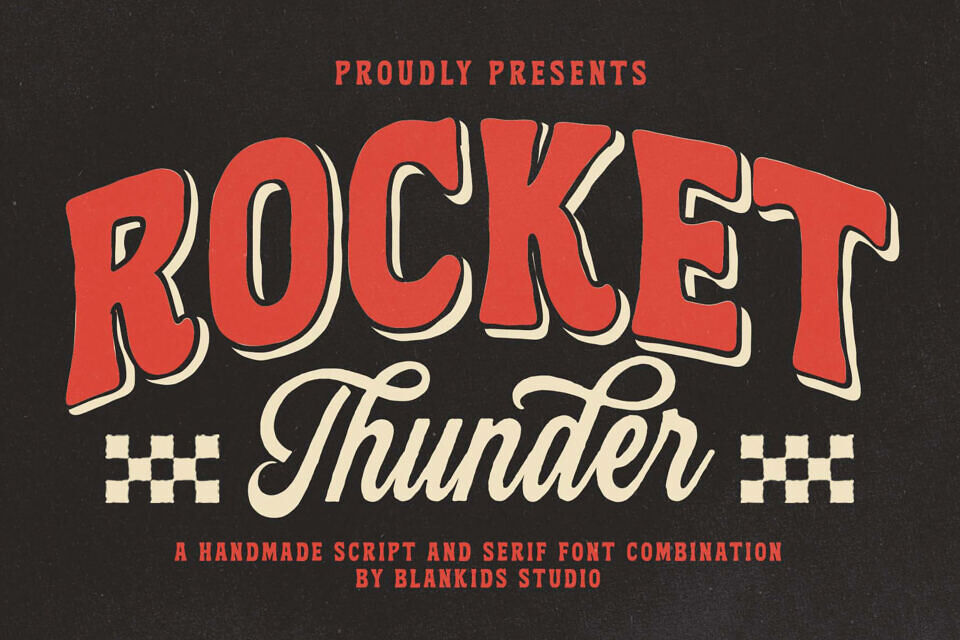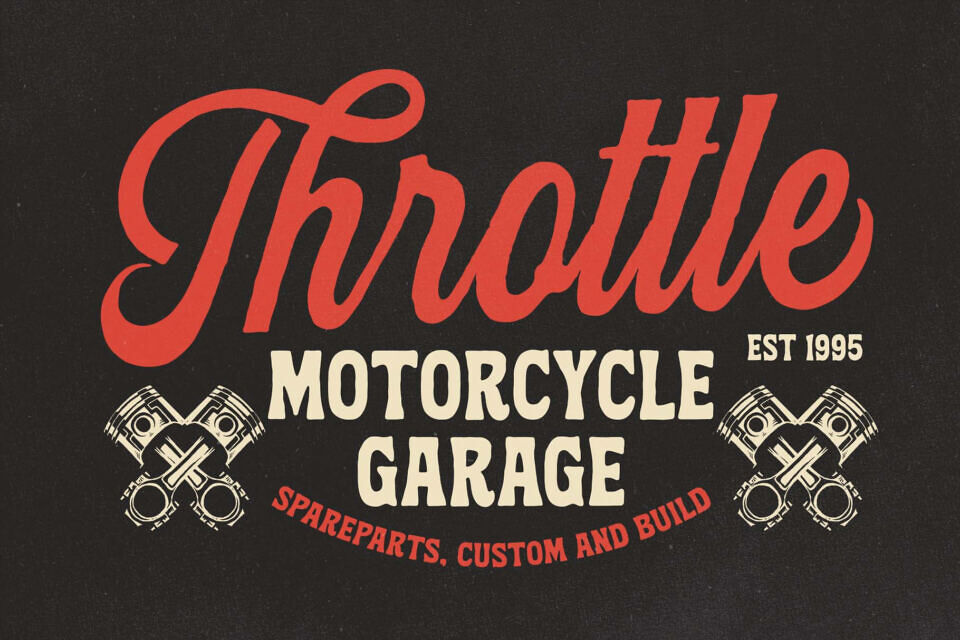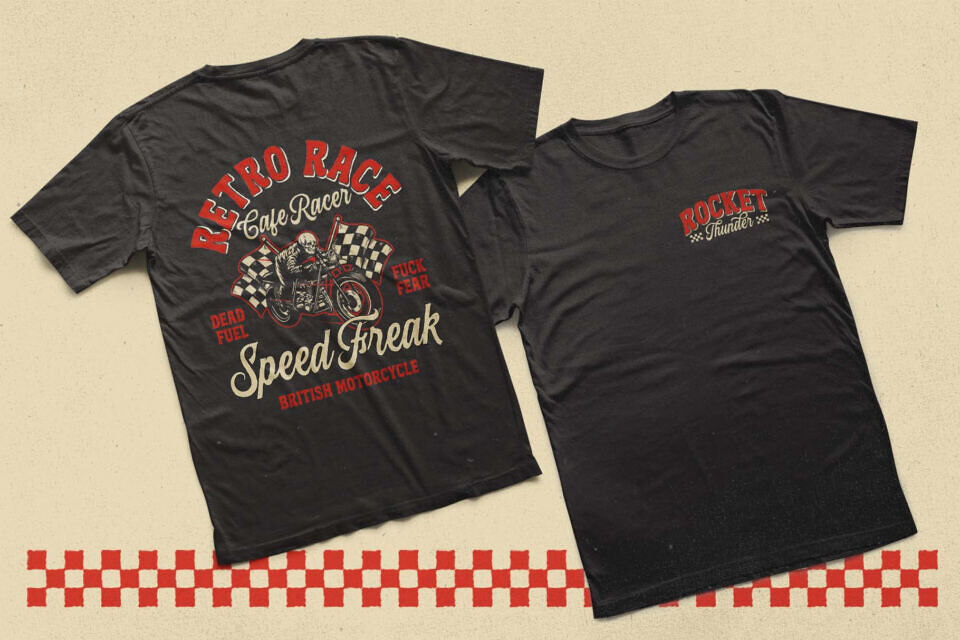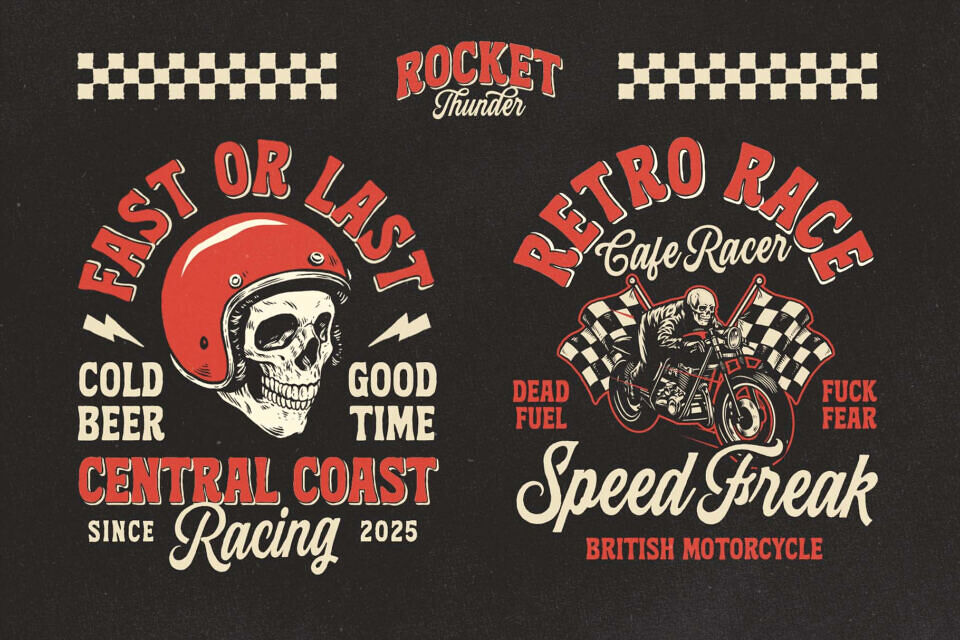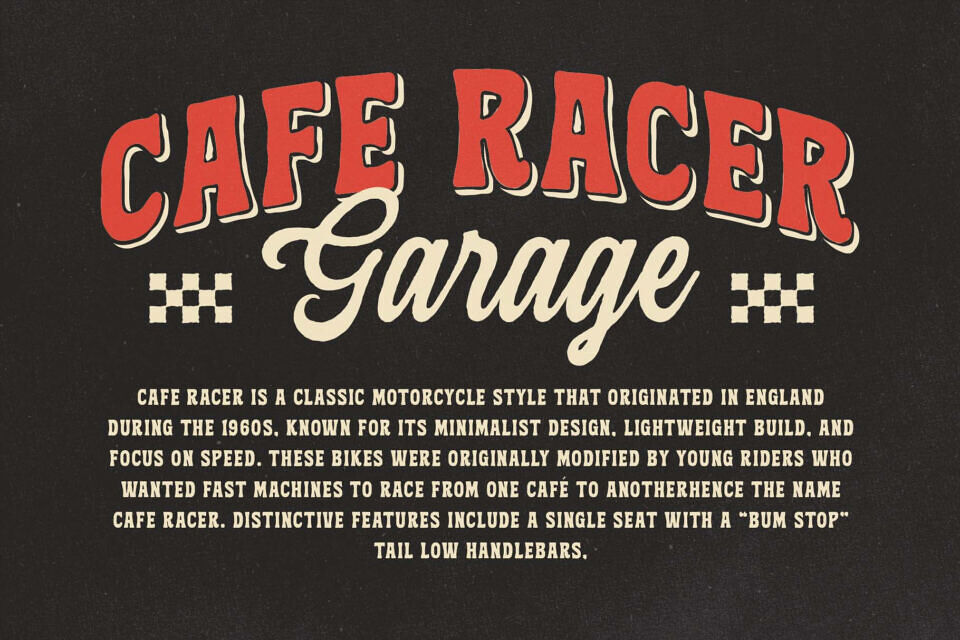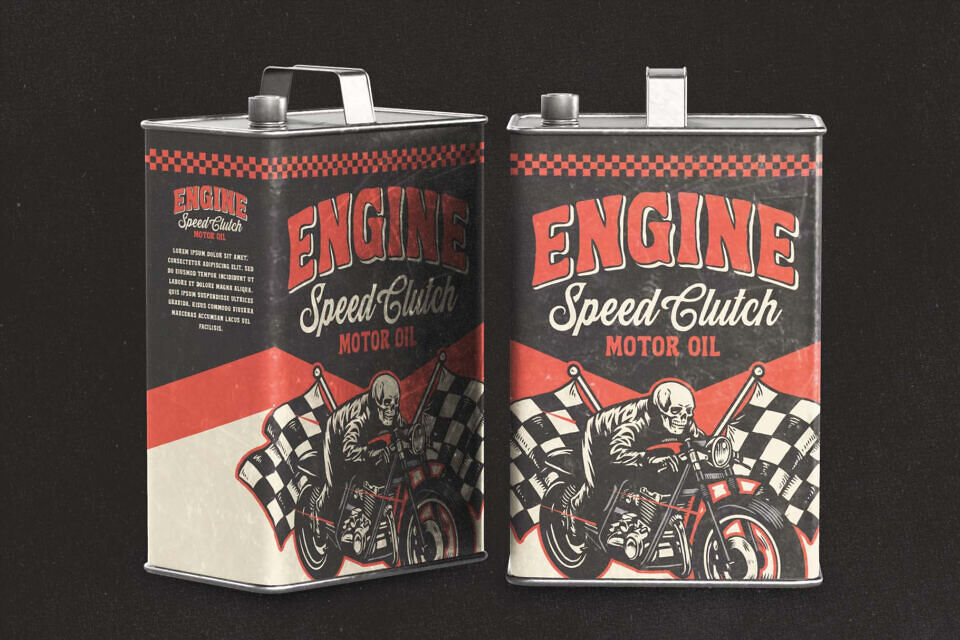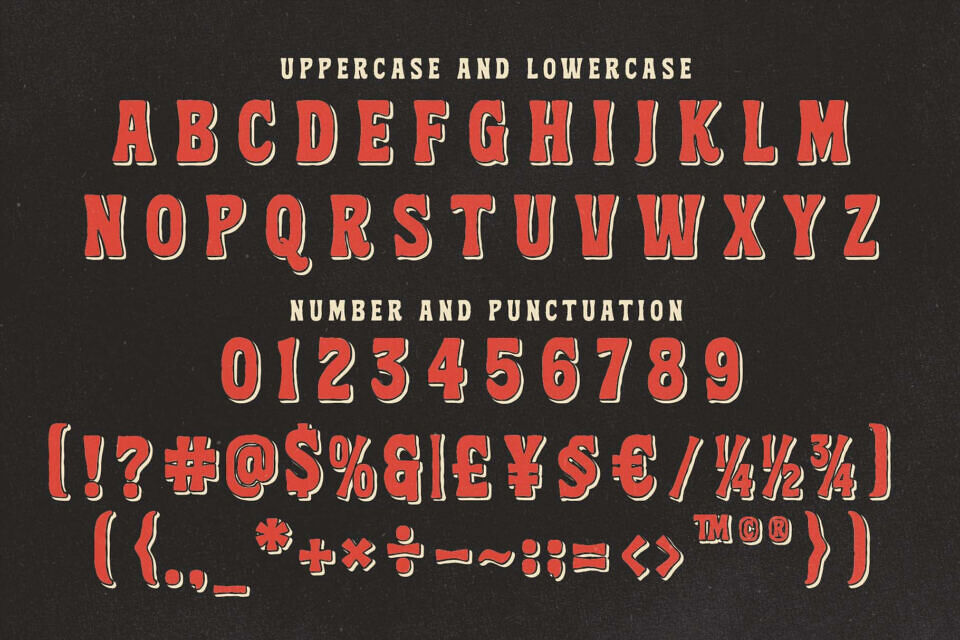
Rocket Thunder Script Font
Rocket Thunder a Handmade Duo Font is made for any professional project branding, such as logotype, watermarks, poster, branding, promotions, product packaging, etc. Every letter has a vintage design. This font comes script and serif style.
Rocket Thunder  font includes a is made for any professional project branding, such as logotype, watermarks, poster, branding, promotions, product packaging, etc. Every letter has a vintage design. This font comes script and serif style.
Designed by: Blankids Studio